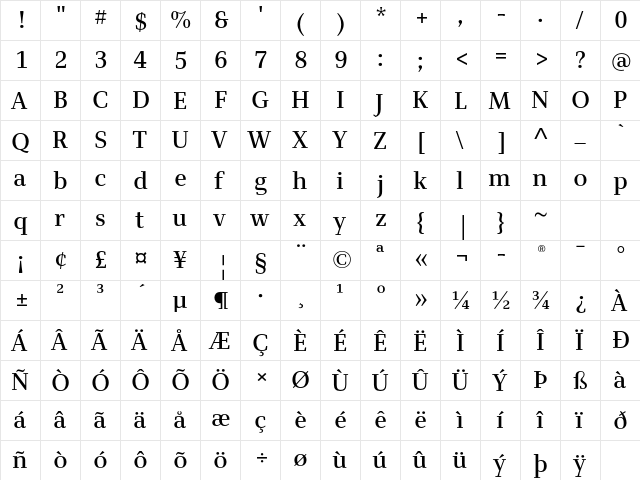
Alfon MD Medium
| Foundry | Terminal Design Inc. |
| Designer | James Montalbano |
Design Context for Alfon MD Typeface
Alfon MD is a composed and adaptable typeface that performs quietly and consistently across a wide range of design contexts.